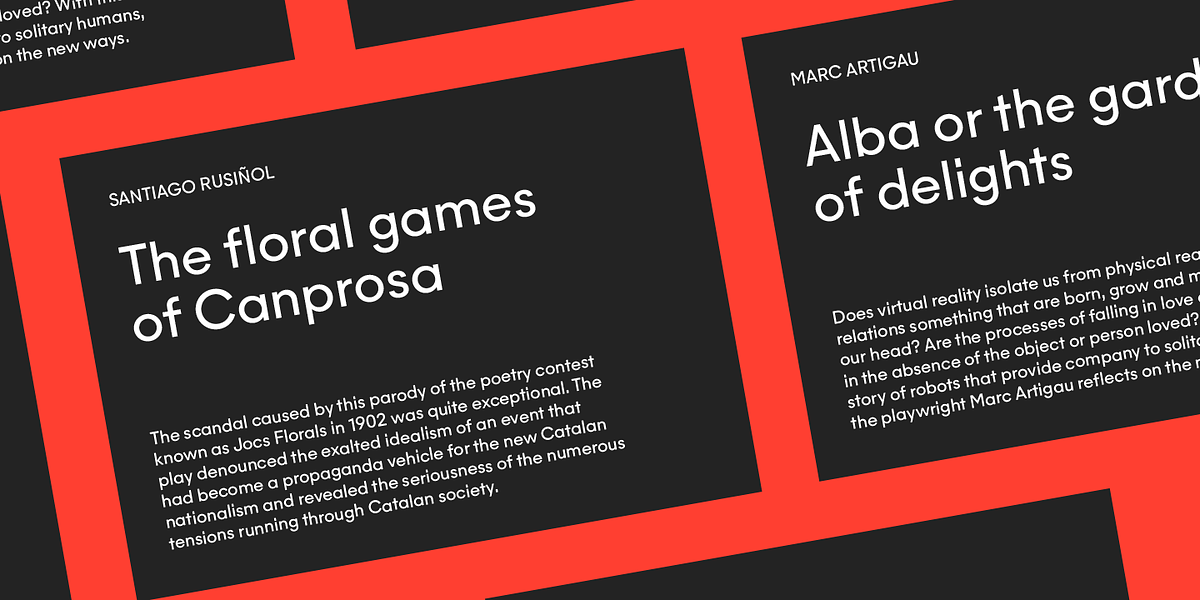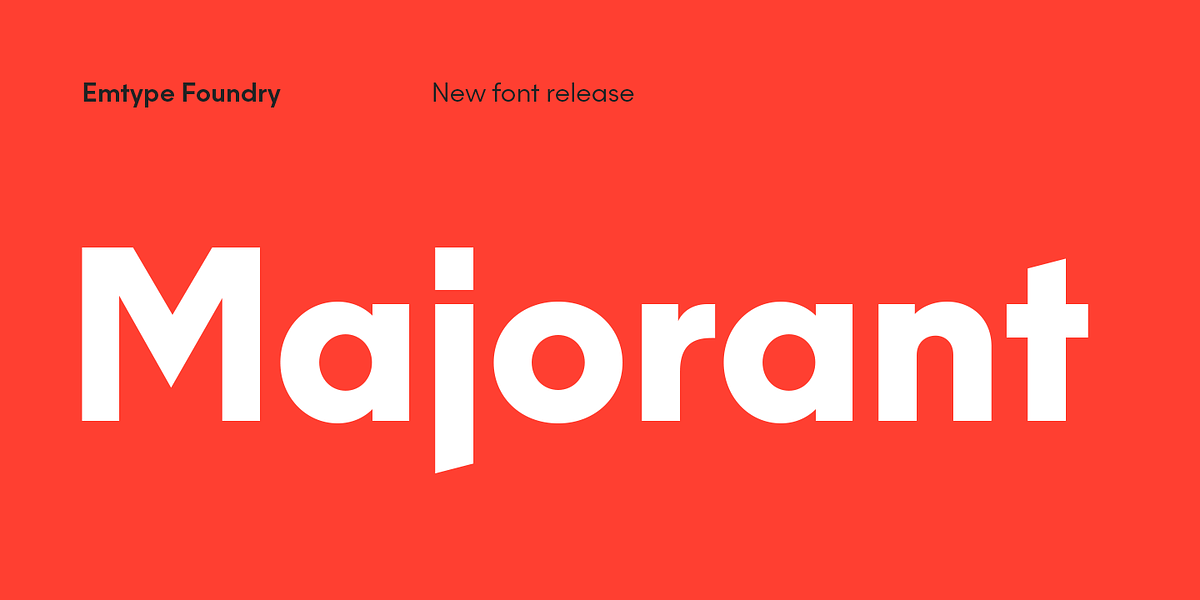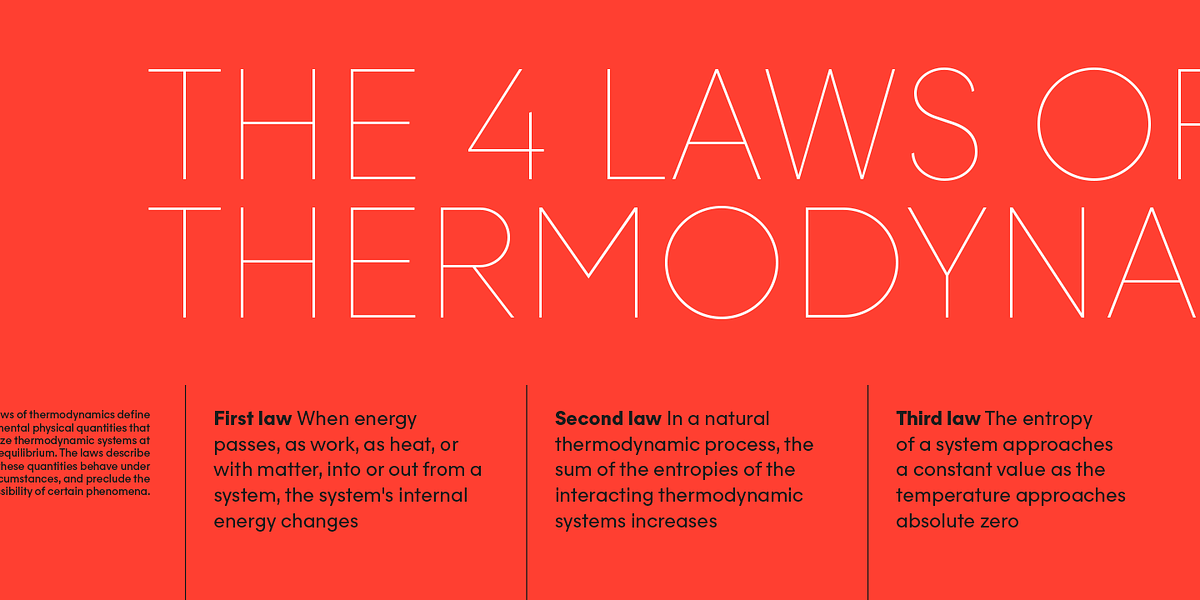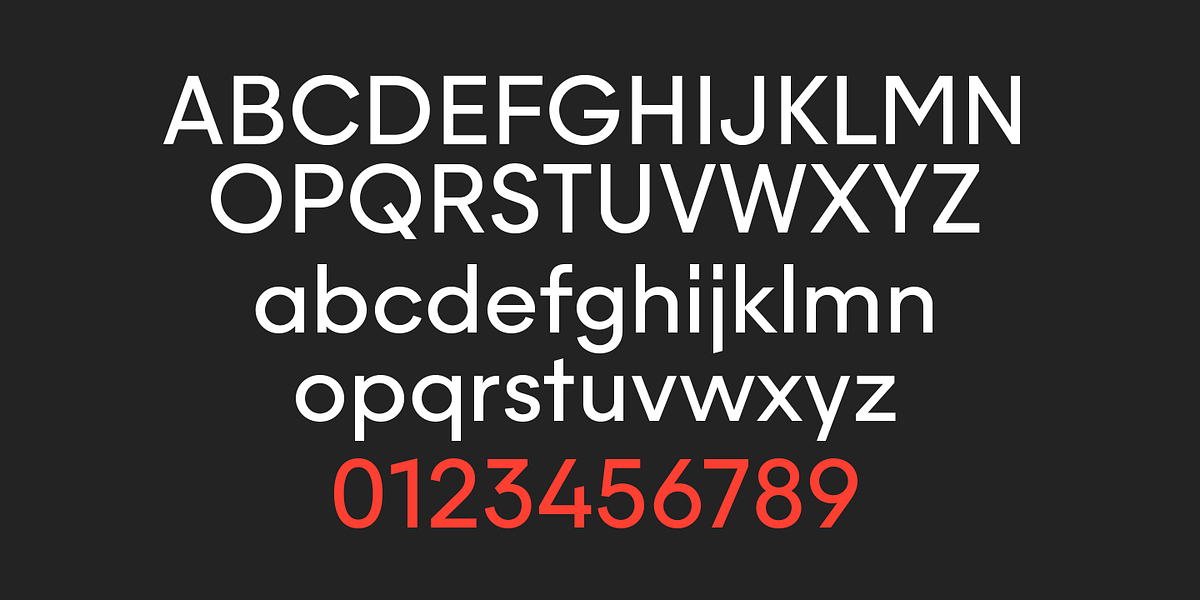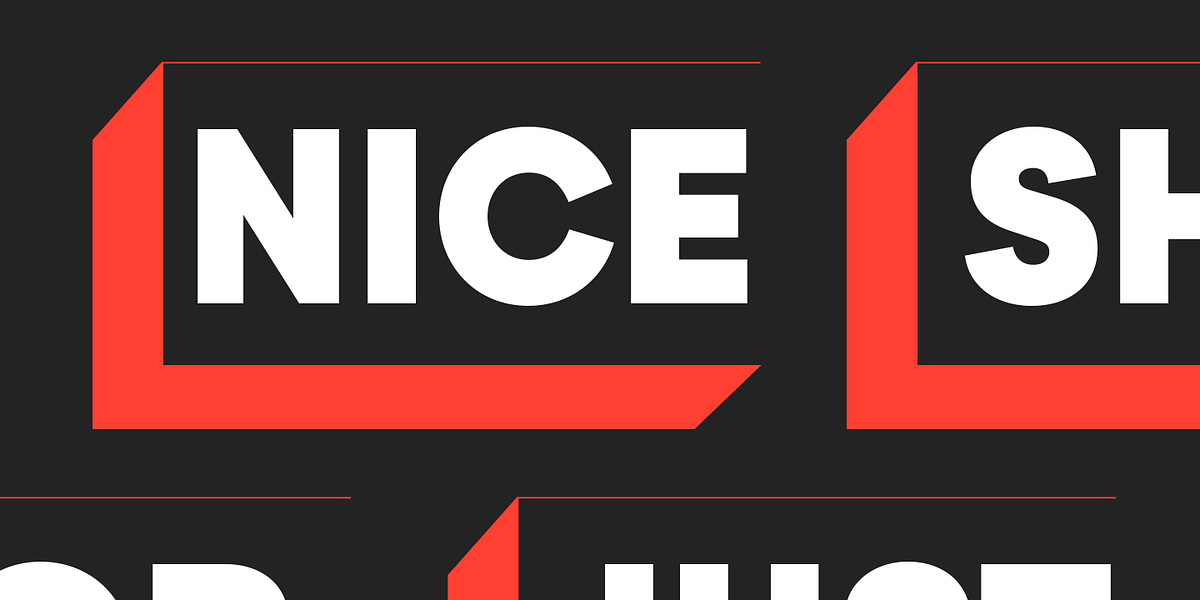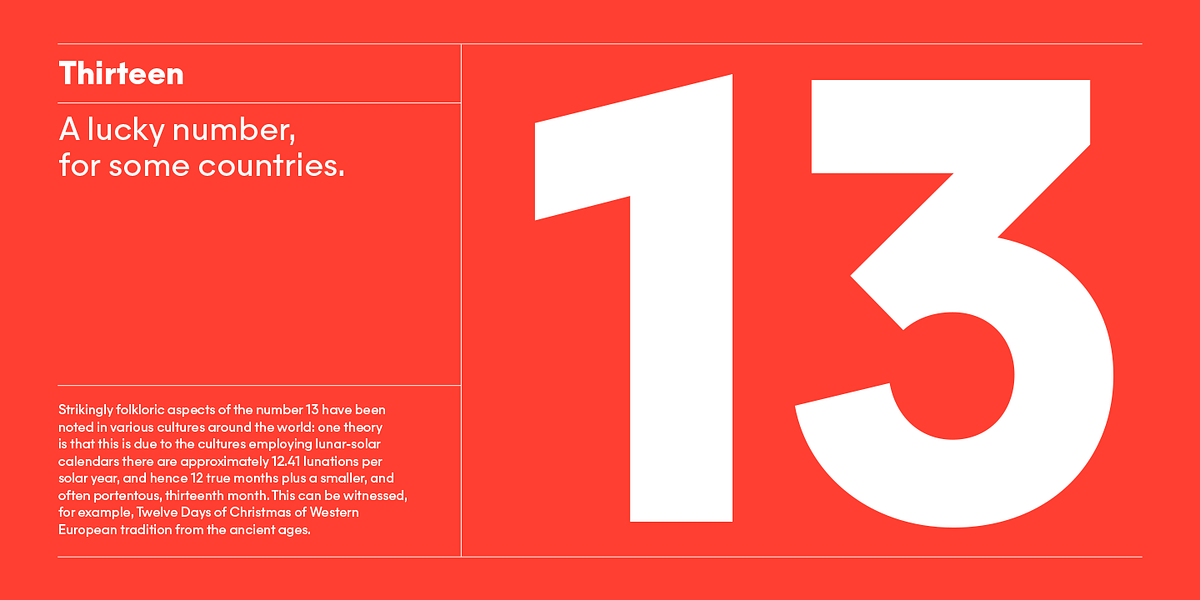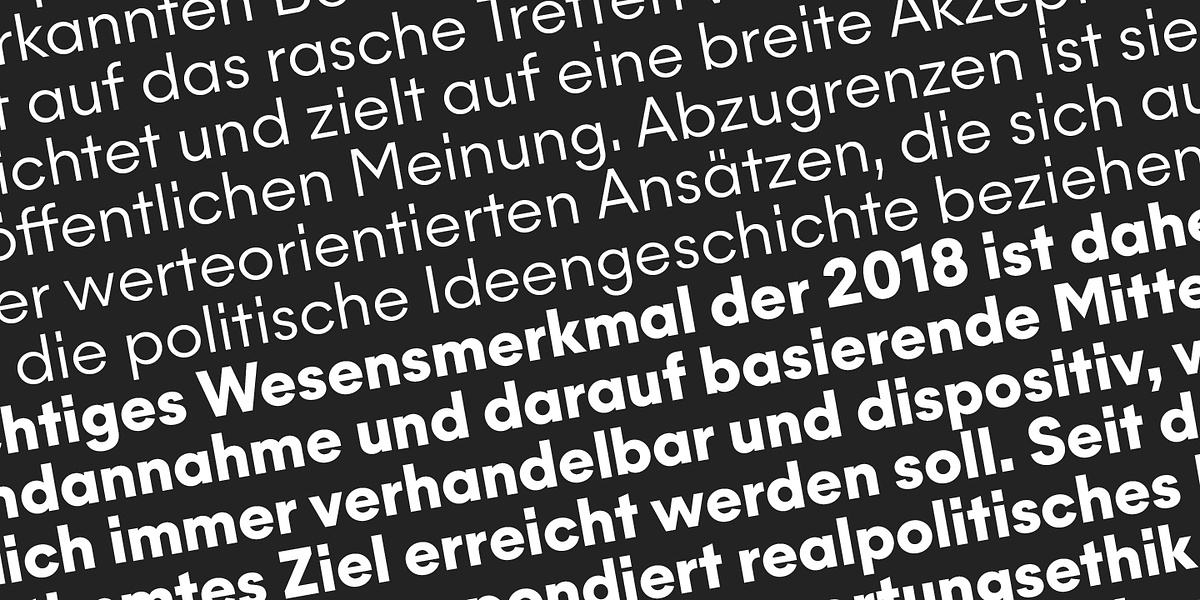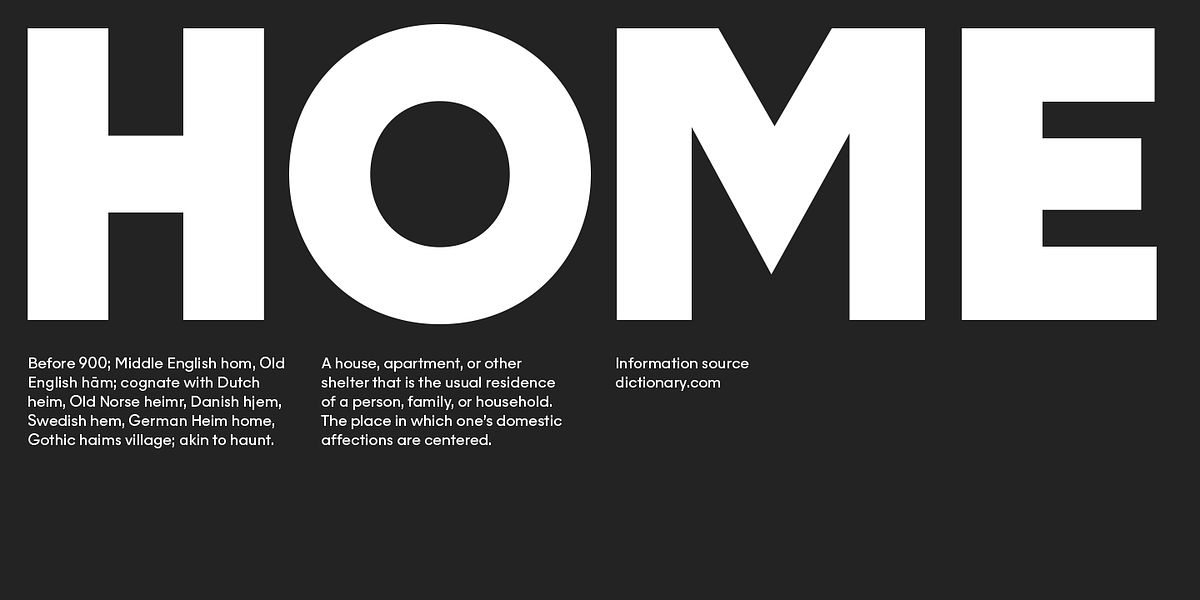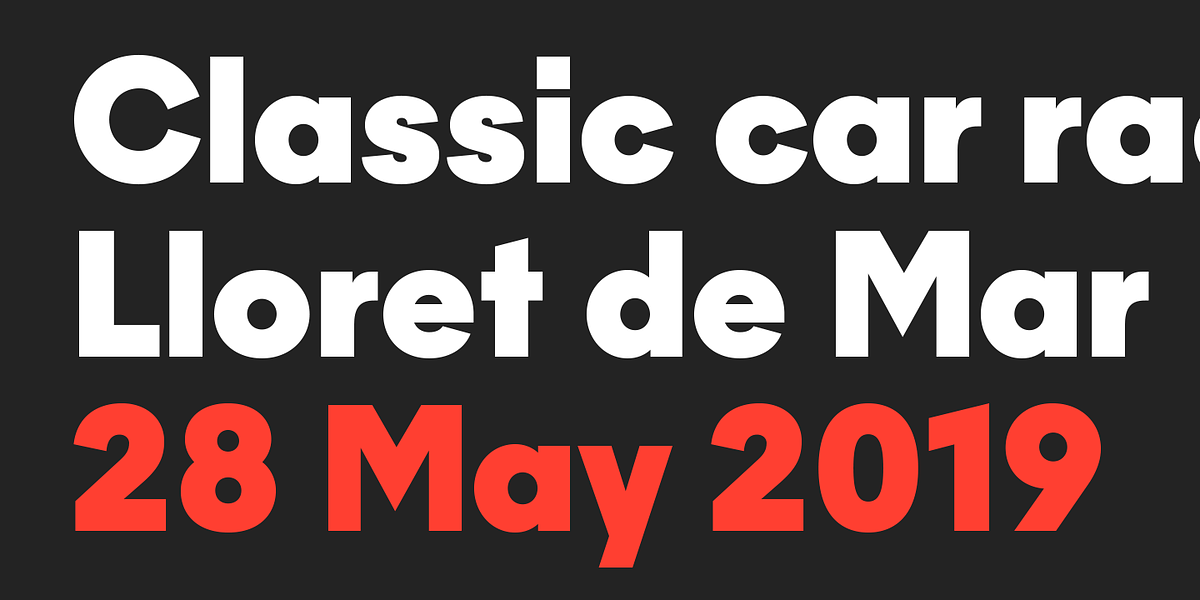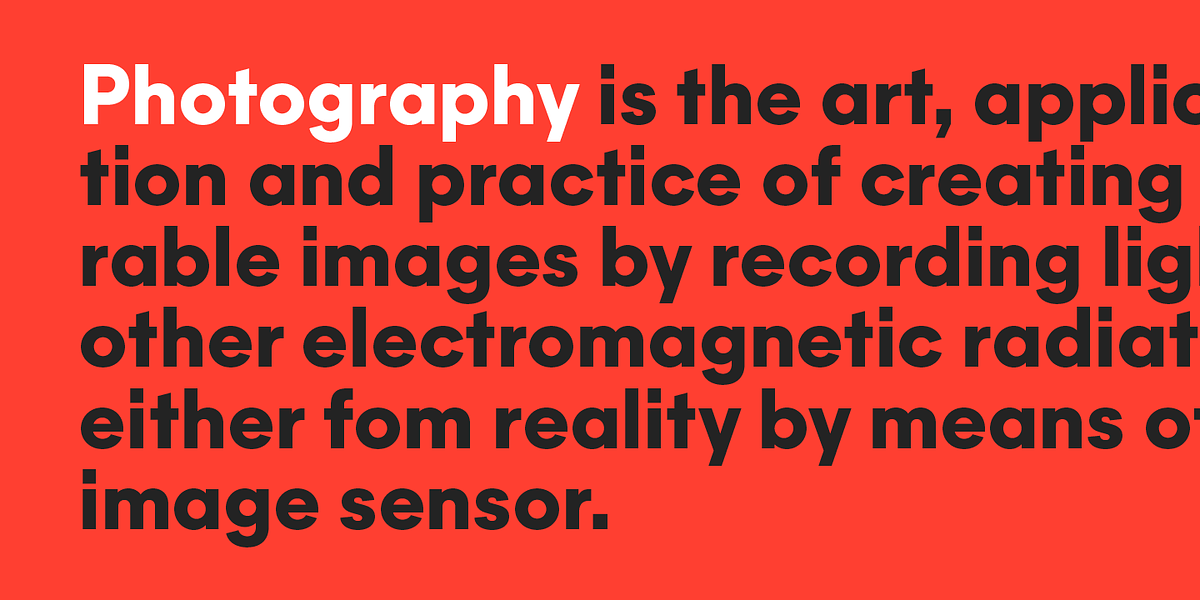
Majorant
Majorant is a contemporary geometric sans serif font designed for versatility. Its wide range of weights, from UltraThin to Black, allows it to function as both a subtle text typeface and a bold display face. The inclusion of alternate characters provides further customization, enabling the font to express different personalities, from sharp and audacious to soft and classic.